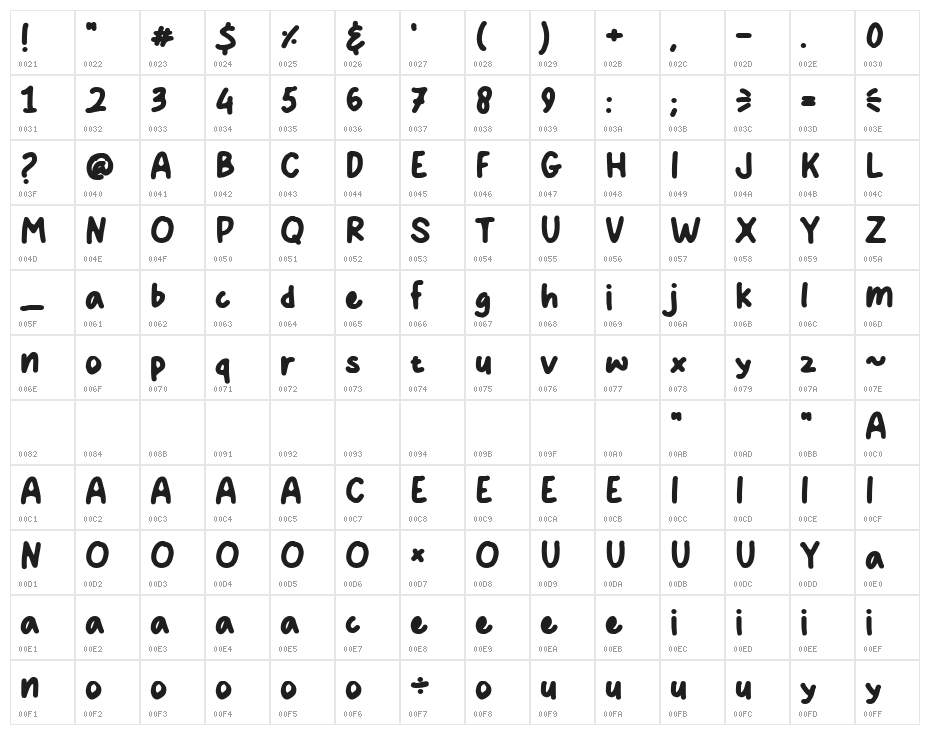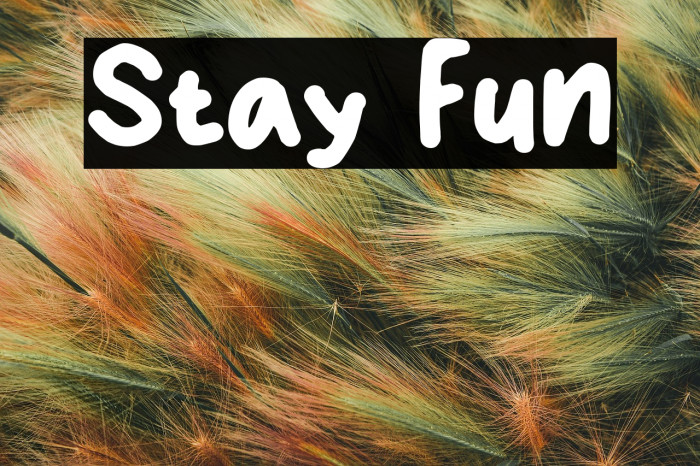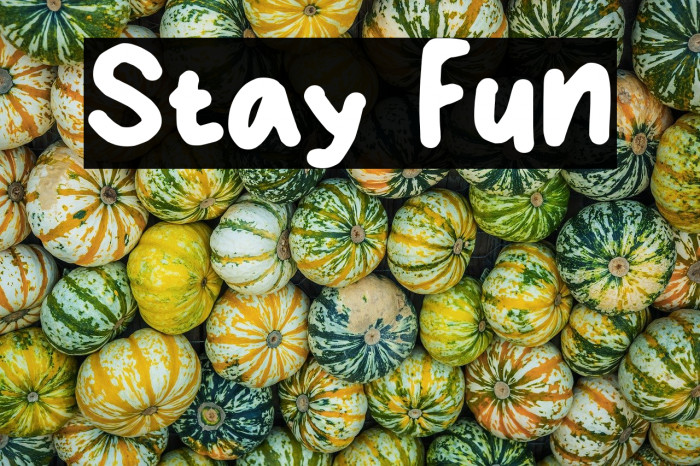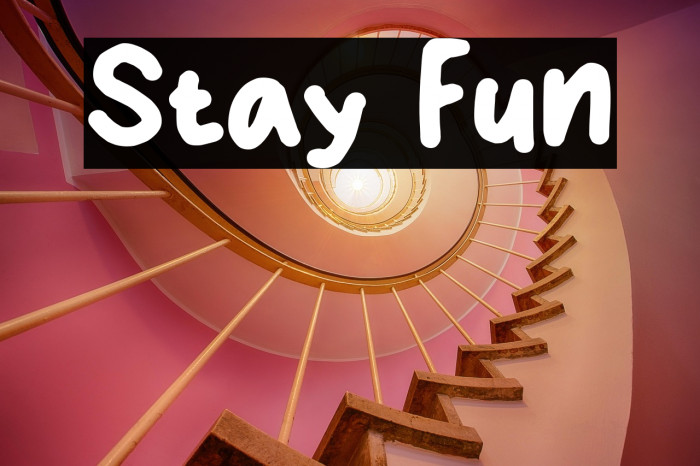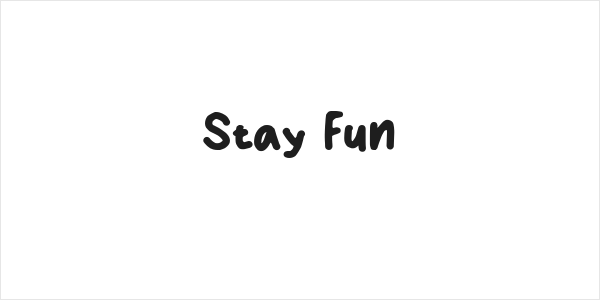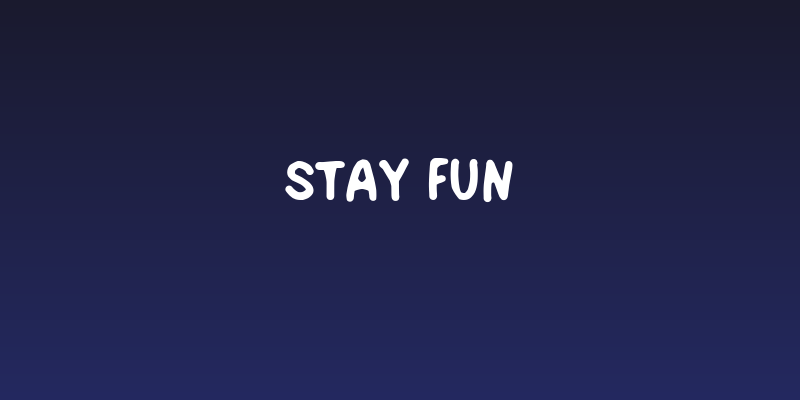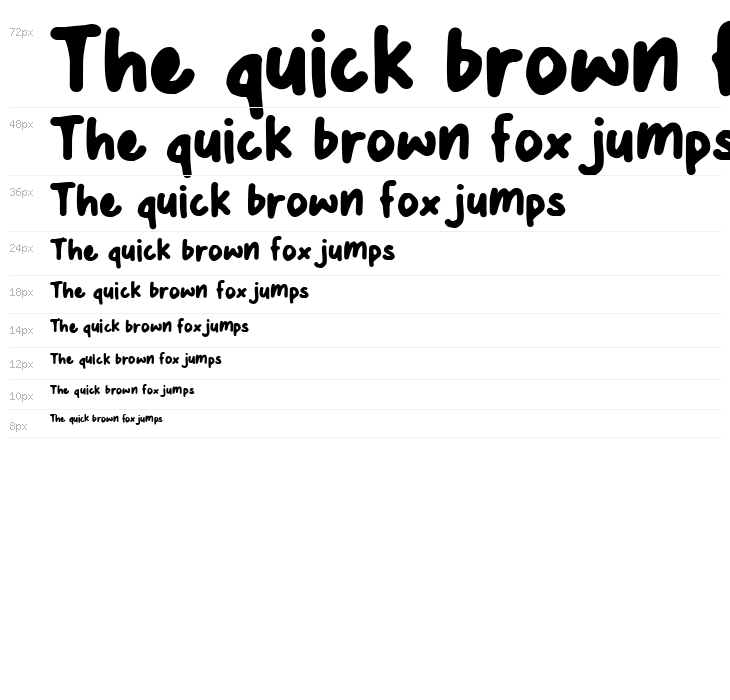
Stay Fun Font
Stay Fun Description
This playful and bold font features rounded, thick strokes that give it a friendly and approachable appearance. The characters are slightly irregular, adding a whimsical touch that enhances its casual and fun vibe. The uppercase and lowercase letters maintain a consistent style, with a smooth flow and rounded edges. Numbers and special characters are designed to match the overall playful aesthetic, making them easily recognizable and visually appealing. This font's unique style makes it suitable for projects that require a lighthearted and informal tone.
| Overall Style | Playful |
| Proposed Projects | Ideal for children's books, playful branding, casual invitations, and fun social media graphics. |